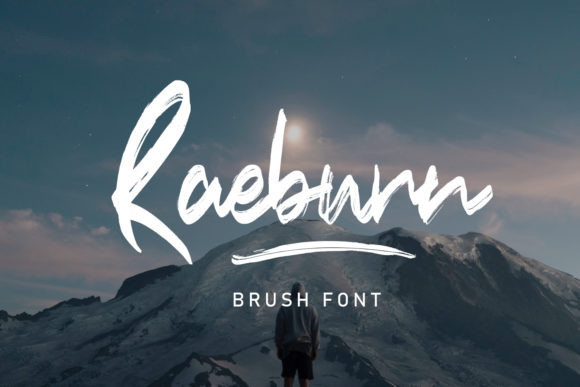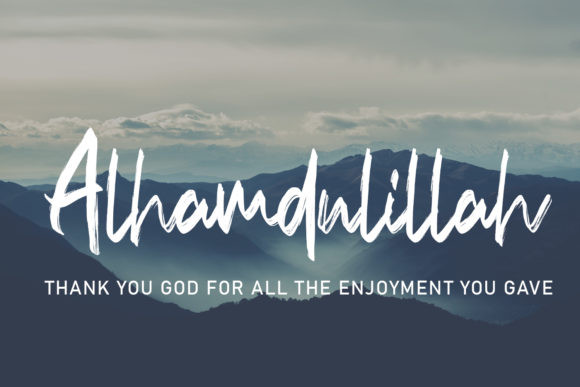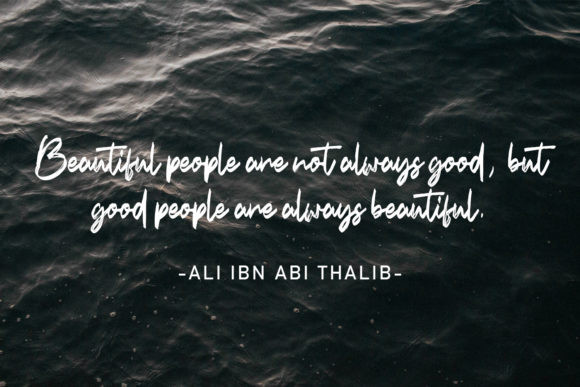
Raeburn Font
Raeburn results out of a stunning pairing of a brush pen and pencil that makes it look incredibly endearing and authentic. Use this gorgeous and unique Raeburn to bring any DIY project to life!